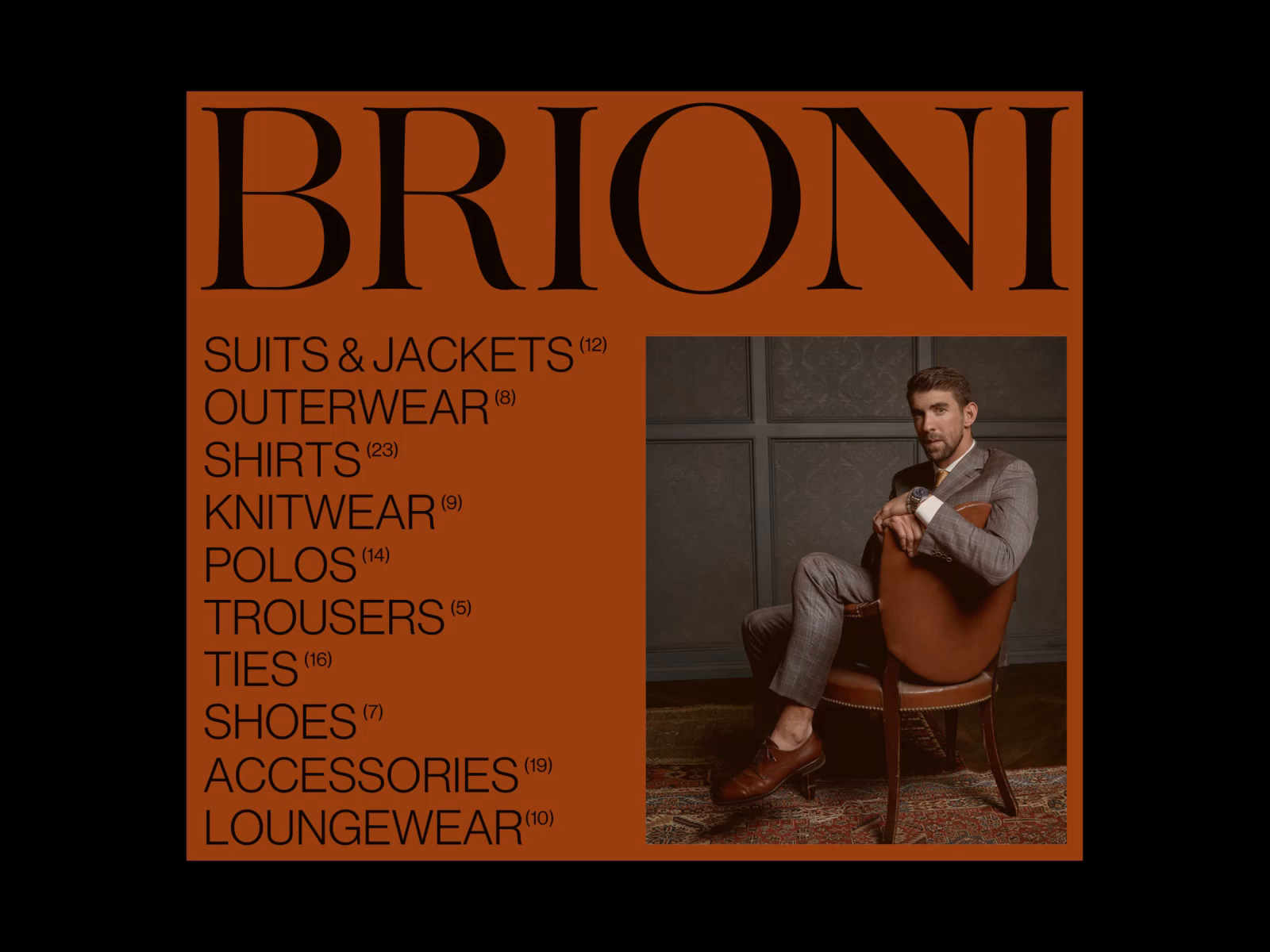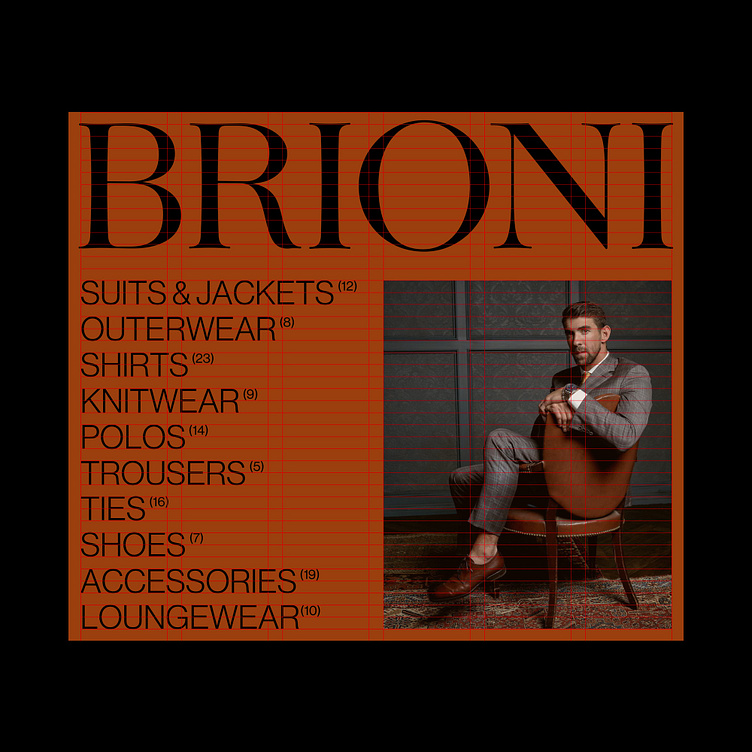
Florence Typeface, Brioni Concept, Initial Load
Currently, I'm working on a serif typeface with a working title "Florence" (the one in the "Brioni" headline).
I love the idea of trying out the typeface and "dressing it up" a bit to see how it feels and where it needs some change. Combine with my passion for motion and UI and you have concepts like this 😅
In multishot, you can see the static version as well as the grid. I also included some initial sketches and unused pointer/cursor ideas I designed and tried in motion but it wasn't right. _____